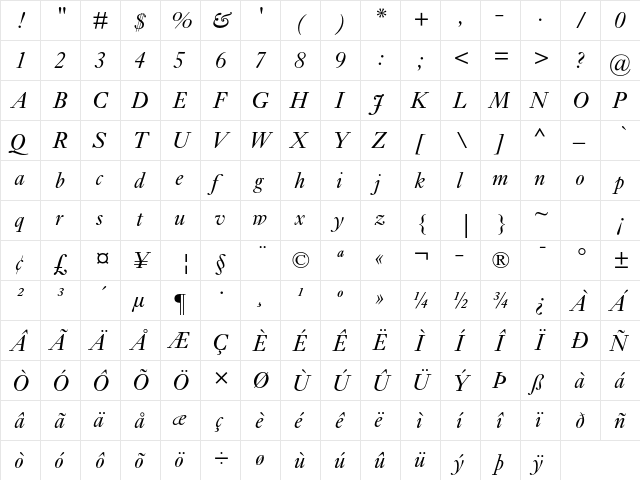
Ehrhardt MT Std Italic
Design Context for Ehrhardt MT Std Typeface
Ehrhardt MT Std takes a measured approach to typography — its balanced proportions and neutral character make it a reliable workhorse for both digital and print work. The dynamic lean of this cut emphasises speed and emphasis in any layout.
Pro Tip: Use Ehrhardt MT Std for emphasis, pull quotes, and subheadings where its slanted energy can add rhythm to the layout.